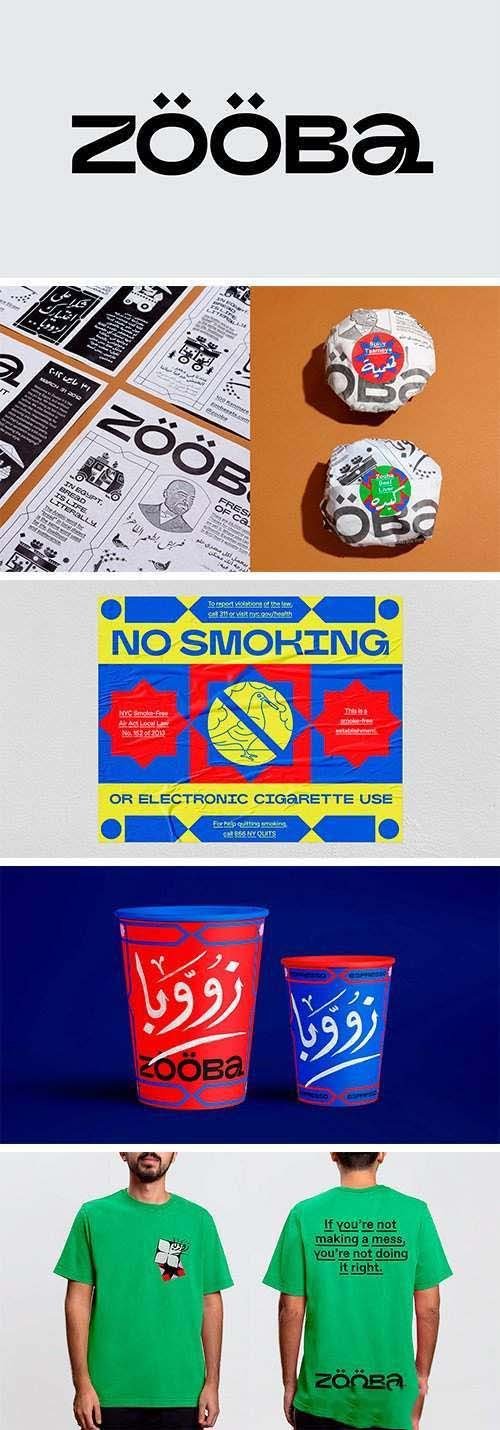
Zooba Typeface
Zuba is a thoughtfully crafted typeface that brings together Arabic and Latin scripts in a distinctive, coordinated design. With its unique character and balanced proportions, this font allows you to create cohesive projects that flow seamlessly between languages while maintaining visual consistency.
Design Characteristics:
- Distinctive Arabic and Latin letterforms
- Unique character with memorable appeal
- Balanced proportions for excellent readability
- Coordinated design ensuring visual harmony
- Versatile for multiple applications
Arabic Script:
- Complete Arabic character set
- Full support for diacritics and marks
- Proper character connections and positioning
- Distinctive styling across all letters
- Optimized for both text and display sizes
Latin Script:
- Coordinated design matching Arabic style
- Complete uppercase and lowercase characters
- Numerals, punctuation, and special characters
- Harmonious weight and proportion with Arabic
- Unique, distinctive appearance
- Branding: Distinctive, memorable identities
- Logos: Unique wordmarks with character
- Web Design: Coordinated digital typography
- Print Materials: Brochures, flyers, publications
- Packaging: Standout product presentation
- Social Media: Engaging, unique content
- Editorial Design: Magazines with personality
- Signage: Distinctive displays
- Creative Projects: Any work needing unique typography
- Distinctive Design: Unique, memorable character
- Coordinated Scripts: Harmonious Arabic and Latin
- Versatile Application: Perfect for creative projects
Key Features of Zuba Font:
- Distinctive Arabic and Latin designs
- Complete character sets for both scripts
- Unique, memorable aesthetic
- Perfect for creative projects needing unique typography